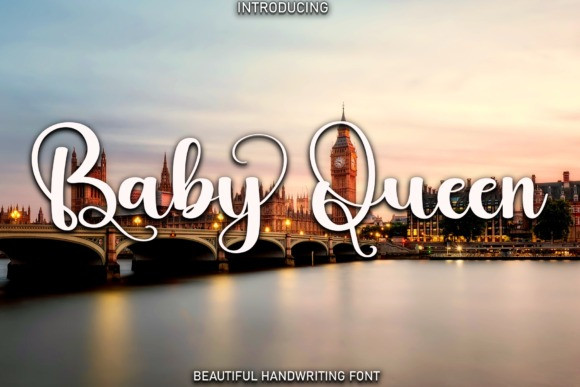
Baby Queen Font
Baby Queen Font is a sweet, whimsical, flowing and thin script font. Featuring characters that dance along the baseline, this font will add a luxury spark to any design project that you wish to create!